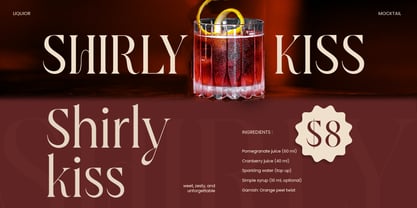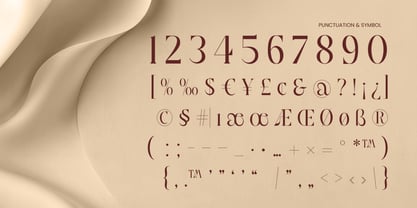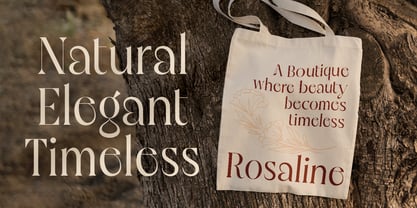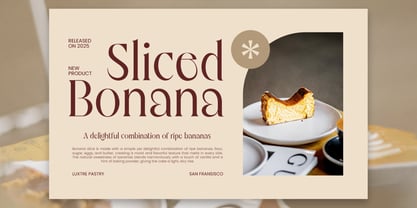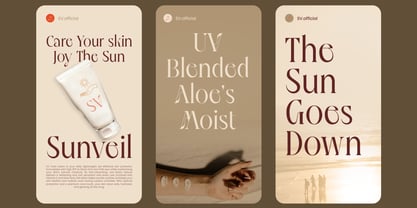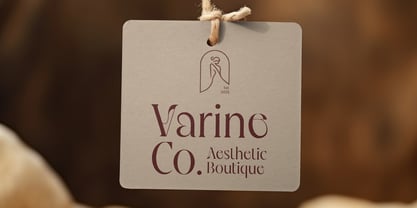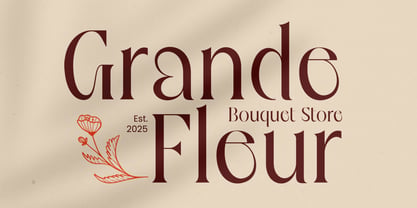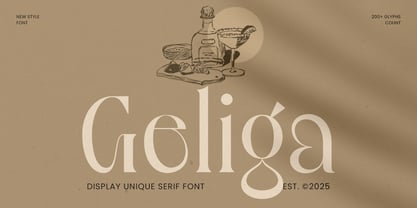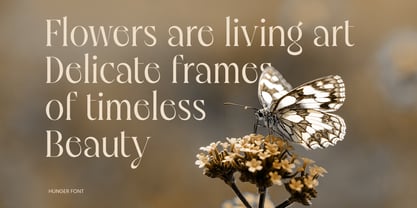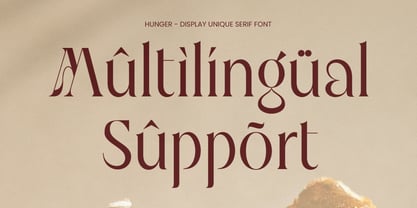
Geliga
Geliga is a display unique serif font crafted to deliver artistic flair, bold personality, and refined elegance to any design. With distinctive serif detailing and expressive letterforms, this typeface is perfect for high-impact titles, luxury branding, and creative editorial layouts.
Inspired by modern fashion typography and sculpted serif trends, Geliga combines smooth curves with sharp accents, producing a dramatic yet balanced visual rhythm. Its uniqueness makes it ideal for designers seeking a standout font for logos, posters, magazines, and premium packaging.
Whether you're building a refined brand identity or designing visually rich editorial spreads, Geliga offers style, confidence, and versatility — making every composition feel polished and memorable.
Geliga – Display Unique Serif Font Features
• Distinctive display serif with artistic, modern character
• Perfect for branding, logos, magazine titles, and luxury packaging
• Expressive letterforms with stylish sculpted serifs
• Great for fashion, beauty, lifestyle, and creative industries
• Uppercase, lowercase, numerals, and punctuation included
• OpenType features for advanced typographic creativity
Make a bold artistic statement with Geliga – the ultimate display serif font for unique, elegant, and modern design.